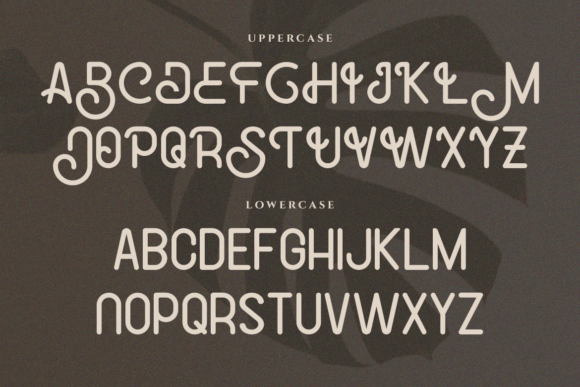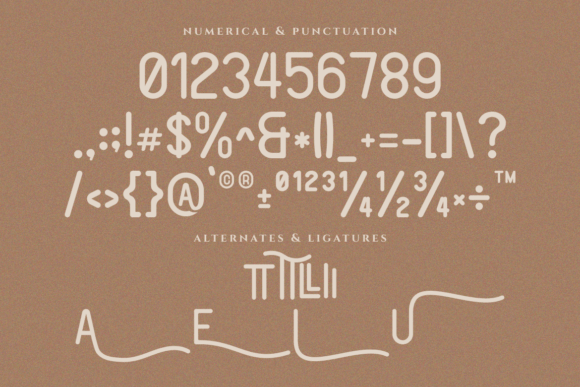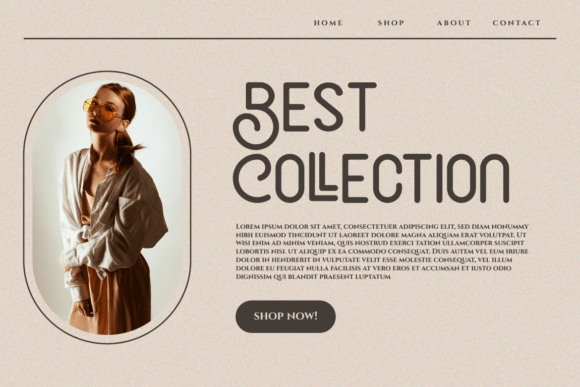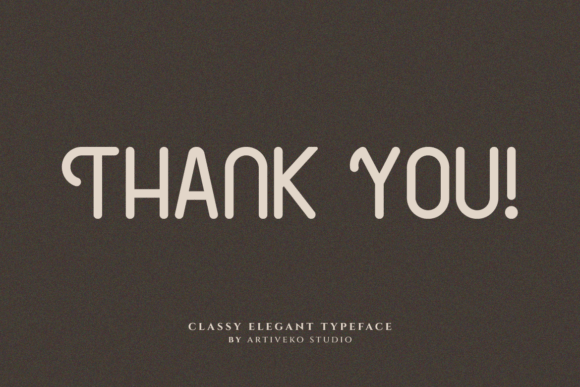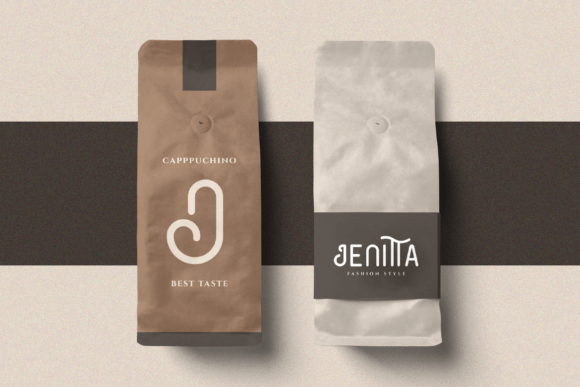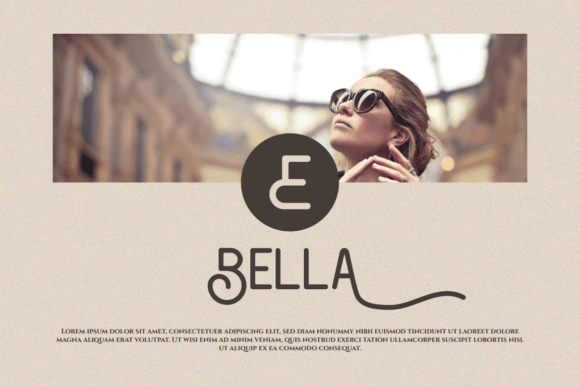
Unlocking Originality: The Power of Bentto Font
Have you ever stared at a blank canvas, searching for the perfect font to bring your design to life? The right typeface can make all the difference in conveying your message and capturing your audience’s attention. For designers seeking a unique touch, the Bentto Font is an exciting discovery.
Bentto Font is a stylish and versatile sans serif font designed to bring originality and elegance to your designs. With clean lines, geometric precision, and subtle creative details, it offers a fresh look that’s perfect for branding, editorial layouts, product packaging, web design, and social media graphics.
What sets Bentto Font apart is its ability to elevate your designs without overpowering them. Its versatility makes it a valuable asset for designers looking to add a touch of sophistication to their work.
Bentto Font Key Features
- Unique Characteristics: Bentto Font features a unique, modern design with a mix of geometric and organic elements, making it perfect for use in branding, advertising, and digital products.
- Kerning and Ligatures: Bentto Font includes advanced kerning and ligature features, ensuring that text sets are perfectly spaced and visually appealing.
Bentto Font Review
Overall, I found the Bentto Font to be a decent addition to any design project. The font’s clean and modern aesthetic is quite appealing, making it suitable for a wide range of applications.
- Highly legible, making it perfect for body text.
- Works well for digital and print applications.
- The font’s versatility is a major plus, allowing designers to easily switch between serif and sans-serif styles.
- It’s a great choice for creating a cohesive brand identity.
- Lacks a strong emotional connection, making it feel somewhat generic.
- It’s not particularly suitable for creating a bold or attention-grabbing design.
- The font’s lack of distinctiveness may make it difficult to stand out in crowded design spaces.
- The Bentto Font’s character set is relatively limited, which may be a concern for designers working with non-English languages.
Overall, I’d recommend the Bentto Font for projects that require a clean and modern aesthetic. However, if you’re looking for a font that truly stands out, you may want to consider other options.
Tips for Getting the Most Out of Bentto Font
Here are some tips to help you get the most out of Bentto Font:
- Use Bentto Font in combination with other fonts to create a unique and eye-catching design.
- Customize the font to fit your brand identity and style.
Bentto Font is commonly used for:
- Logo design and branding.
- Advertising and marketing materials.
- Graphic design and digital art.
Alternatives to Bentto Font for Designers
The Bentto Font is a sans-serif typeface known for its clean and modern design. However, there are several alternatives that designers can consider depending on their project’s requirements. Here are a few options:
Montserrat Font is a sans-serif typeface designed by Julieta Ulanovsky. It is inspired by the urban landscape of Buenos Aires and is known for its geometric and modern design. Montserrat Font is suitable for projects that require a clean and contemporary look. It is similar to Bentto Font in terms of its sans-serif design, but Montserrat has a more geometric feel to it.
Open Sans Font is a sans-serif typeface designed by Steve Matteson. It is known for its clean and neutral design, making it suitable for a wide range of projects. Open Sans Font is similar to Bentto Font in terms of its simplicity and legibility, but it has a more rounded feel to it.